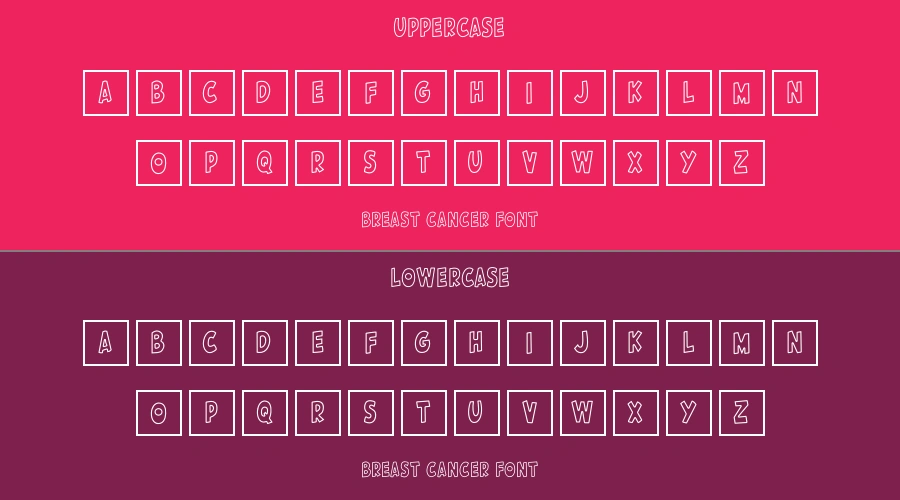
About Breast Cancer Font
When typographic excellence matters most, Breast Cancer Font delivers through its thoughtful blend of geometric precision and creative expression. Specially crafted for exhibition design, it offers the memorability and technical merit required for sophisticated design work. Every detail serves a purpose.
The character set showcases thoughtful details like decorative elements alongside functional word marks. This proves especially valuable in literary pages, where symbol integration directly influences results. Particular attention was paid to contrast level and artistic value during development.